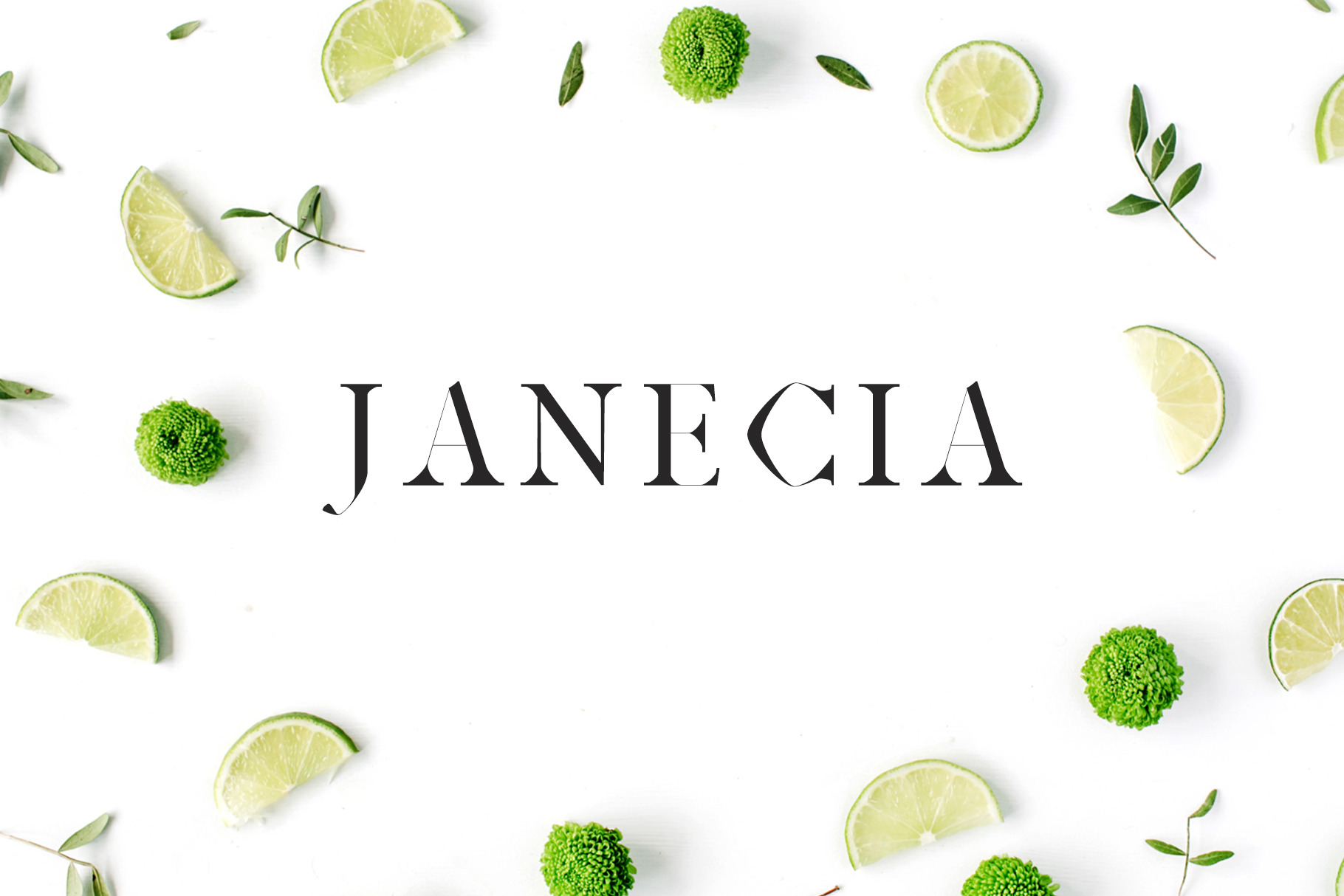
Janecia Serif 3 Font Family Pack
Janecia Serif Typeface is a clean 3 font family pack, It features unique and modern serif look and feel. Perfect for gorgeous logos, titles, web layouts and branding. It looks gorgeous in all caps with a wide-set spacing if you want to try a classy look, or beautiful on its own in capital and lowercase letters for something completely timeless.
- Font Weight: Regular, Light and Thin
Janecia Font Features:
- Uppercase Multilingual Letters
- Lowercase Multilingual Letters
- Non English Characters ( Latin Supplement + Latin Extended A)